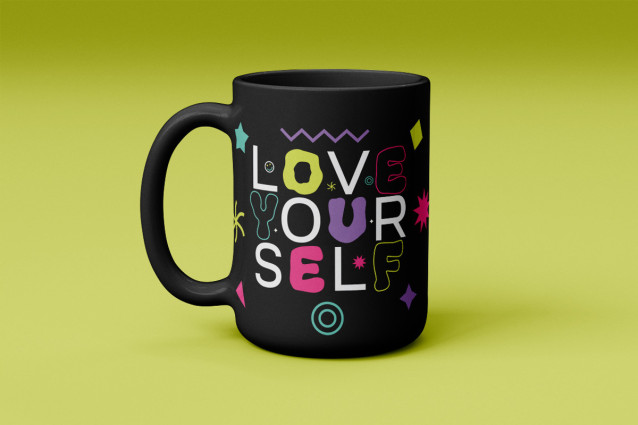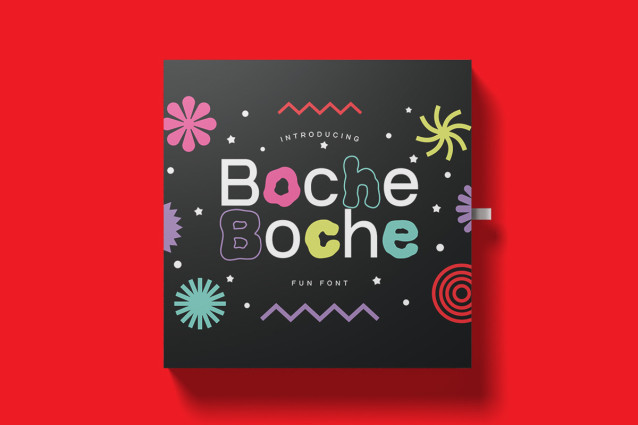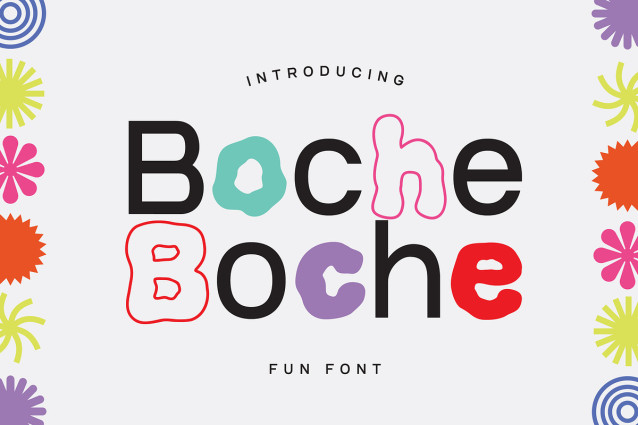
Boche Font
Boche Font is a playful sans serif font created to add joy and personality to your designs. Featuring a variety of fun alternate characters, Boche allows you to mix and match letterforms for a unique and expressive look that feels fresh and lively.